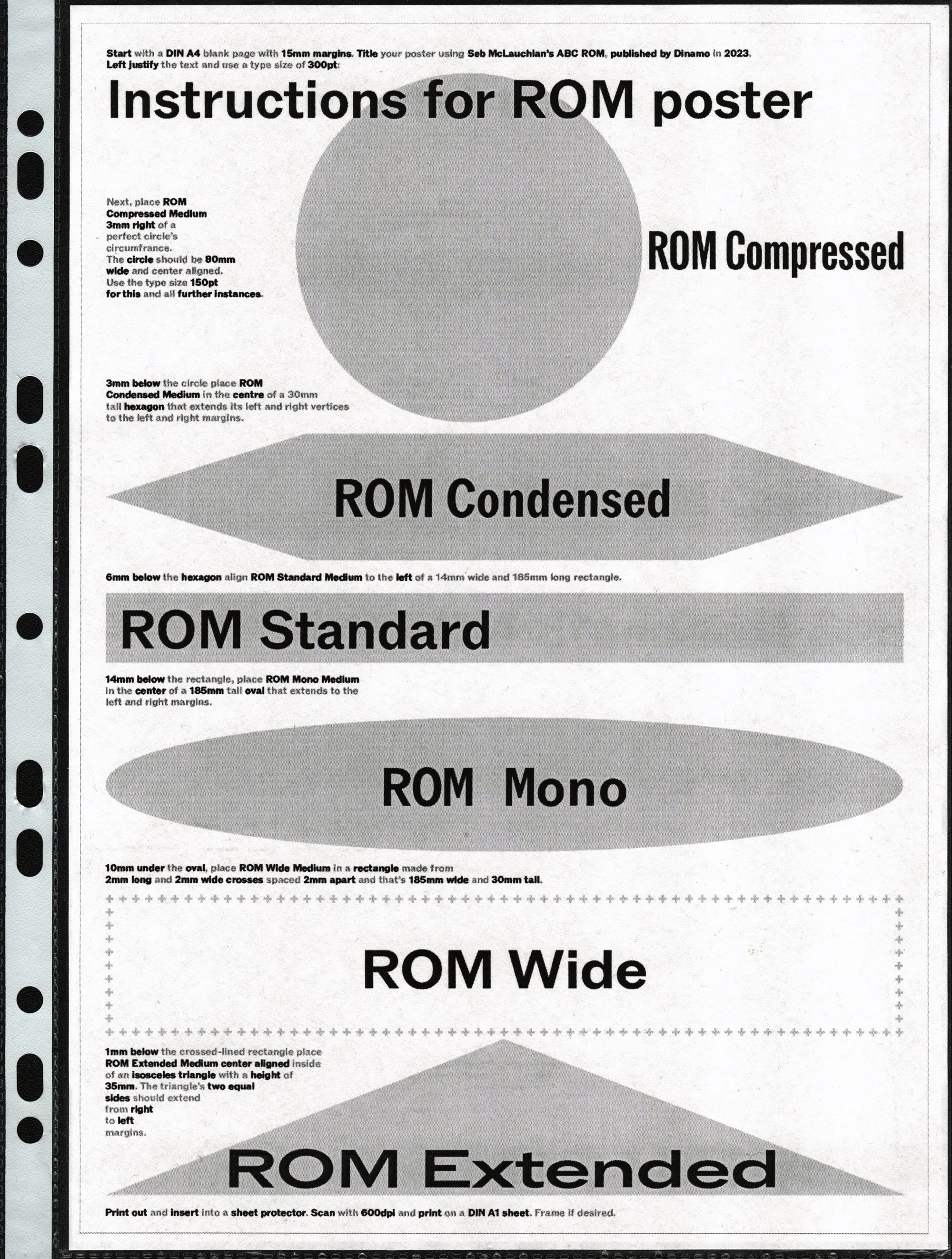
Designed by our longstanding collaborator and dear friend Seb McLauchlan, ROM is a sturdy, confident fusion of classic Grotesk and Gothic typeface styles. It combines the rationalized lines of the former with raw details from the latter, resulting in moments both beautiful and dissonant. Taking inspiration from typeface applications in conceptual art catalogs from the ’60s and ’70s, ROM’s proportions are wide and generous in caps, and narrow and elegant in lowercase.
In true Dinamo style, Seb is a graphic designer first who makes fonts second. In search of a mature typeface in the spirit of Franklin Gothic, Bell Gothic, or Akzidenz-Grotesk for his own publishing projects — one with a complete weight range that he could use sparingly — Seb took to a blank page and started constructing ROM. ROM features six subfamilies that flow gracefully from Compressed to Extended. Notice what happens to the O’s counter as it grows — shifting from diamond to rectangle to circle. It’s in these details...